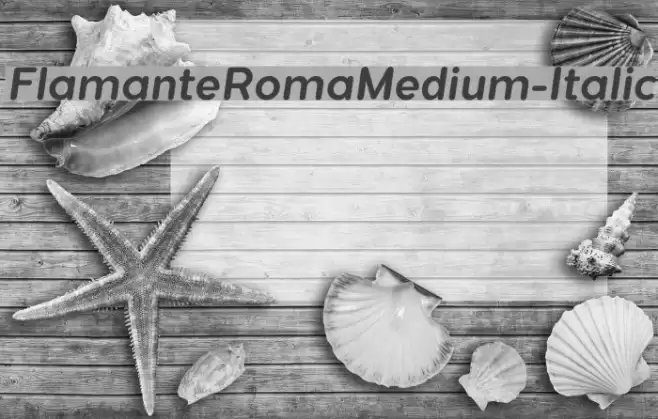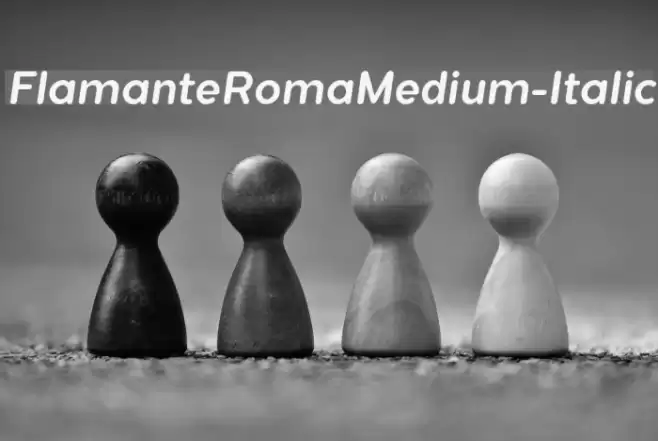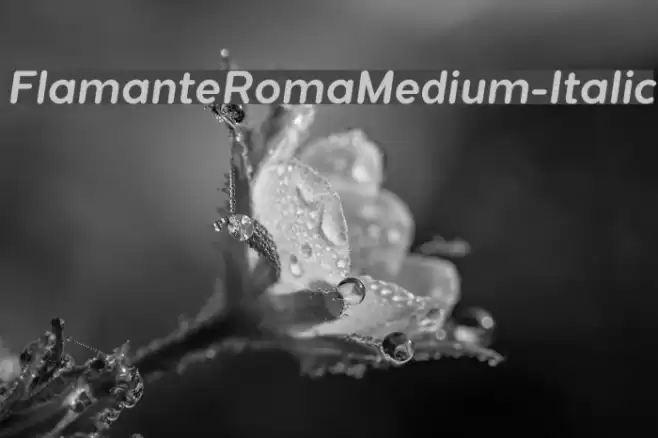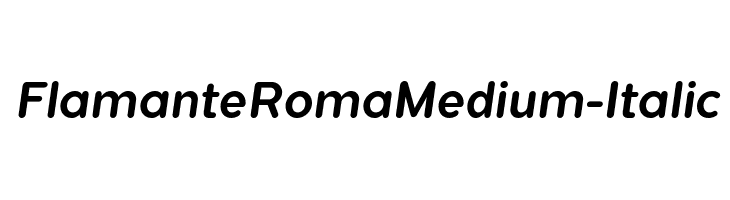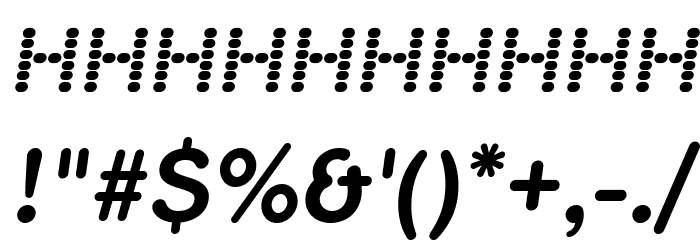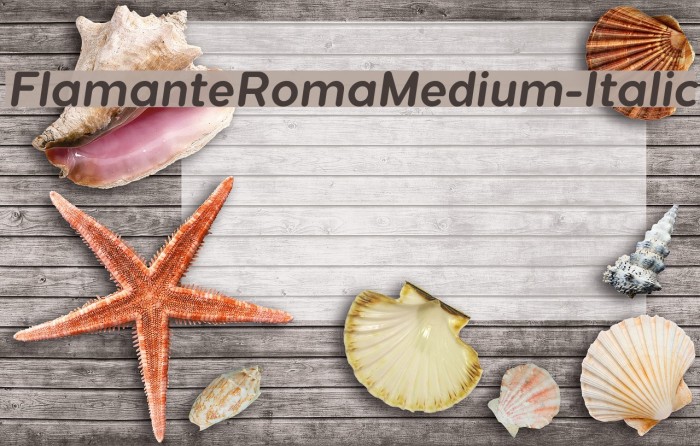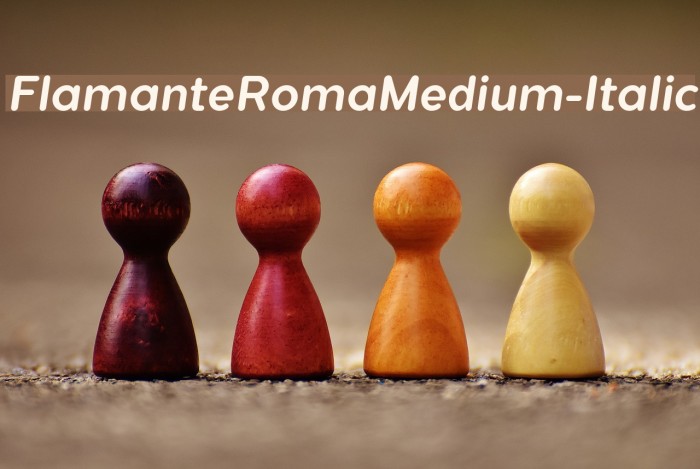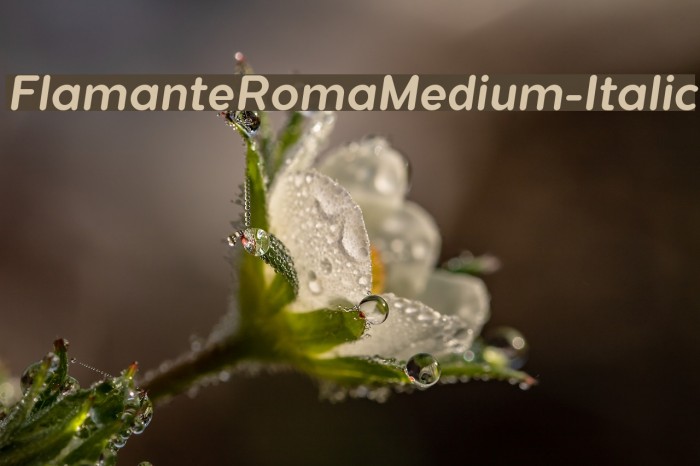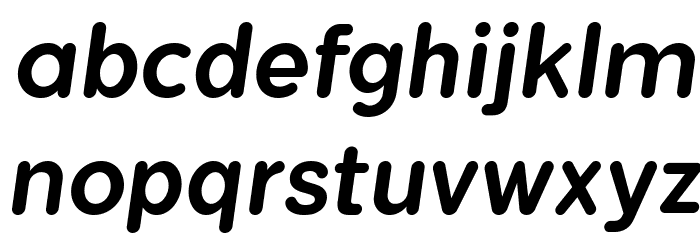
FlamanteRomaMedium-Italic Font
FlamanteRomaMedium-Italic Description
This typeface exhibits a modern and sleek design with a subtle italic slant, providing a sense of motion and elegance. The characters are well-proportioned, maintaining a consistent stroke width that contributes to a clean and professional appearance. The rounded edges of the letters add a touch of softness, making it approachable and versatile. The font includes a full set of uppercase and lowercase letters, numerals, and a variety of punctuation marks and symbols, ensuring comprehensive usability. Its medium weight offers a balanced presence, suitable for both digital and print media.
A modern, italic typeface with rounded edges and medium weight from Uncategorized fonts.
- Proposed Projects: Ideal for branding projects, editorial design, advertising, and web design where a modern and approachable feel is desired.